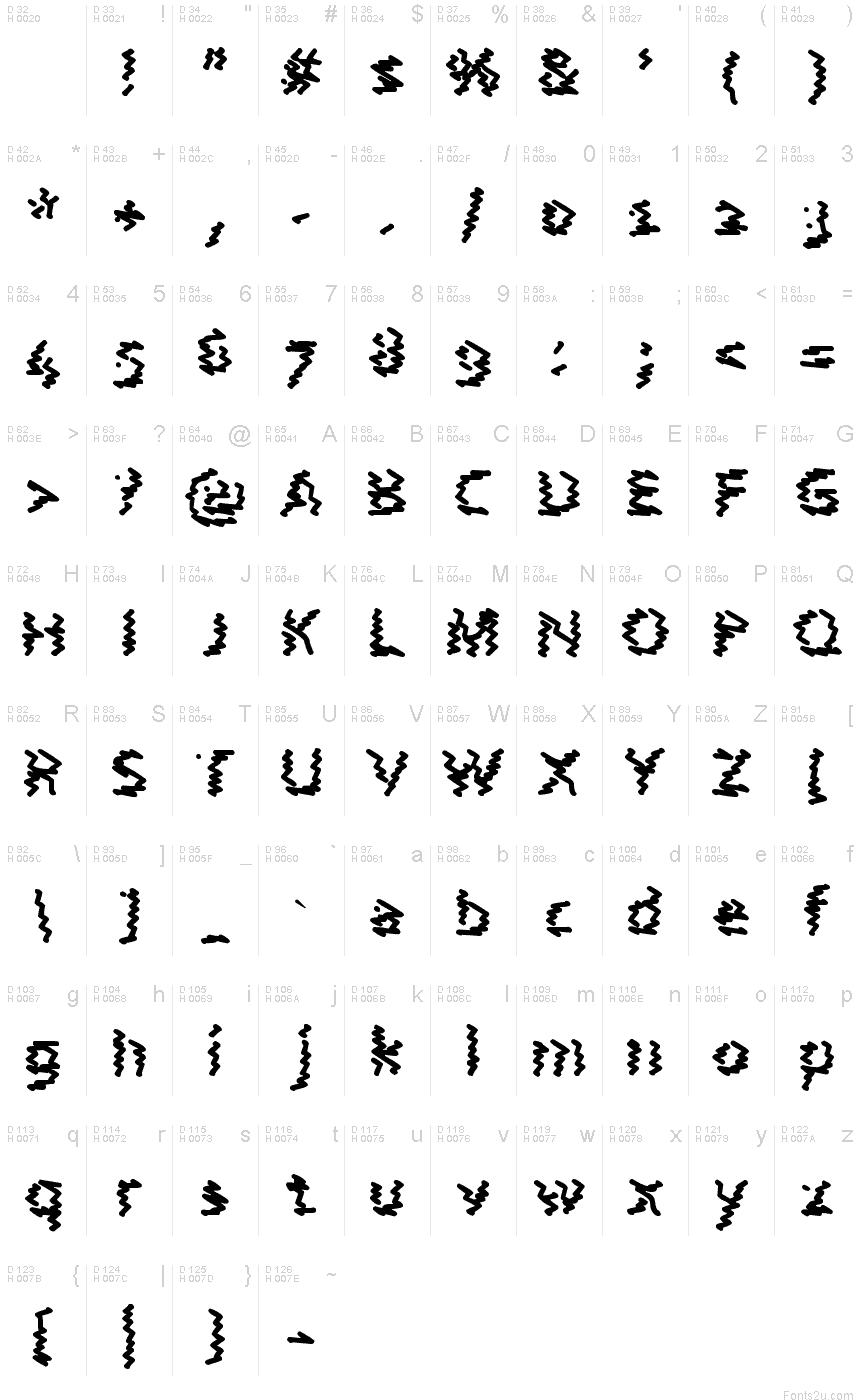
Astral Wave
Astral Wave is a cool little font that looks like letters distorted by waves or oscillating energy. The letter forms are recognizable but distorted in some cases. This font is best used as a headline or sub-headline type solution. Please donate $1 if you feel obliged to help me keep creating fonts.